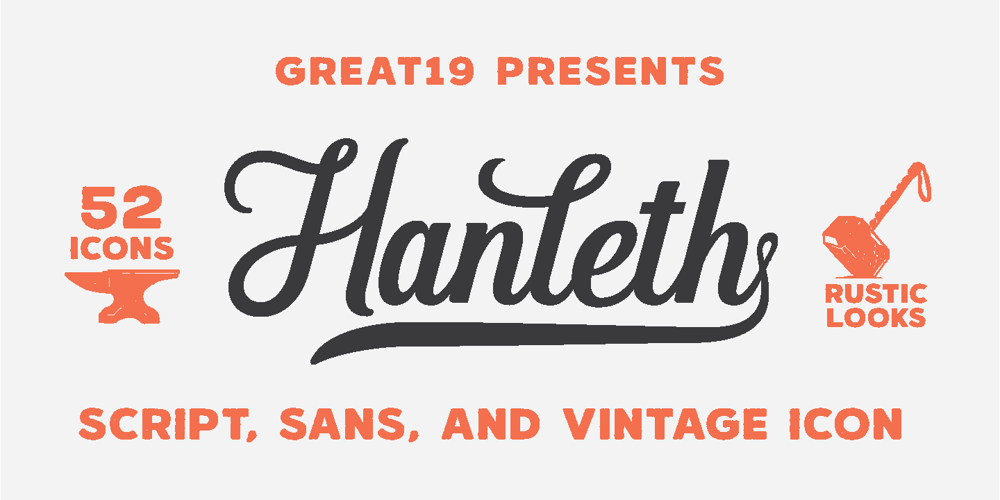
Hanleth Font Family was designed by Andhi Yulianto and published by great19. Hanleth contains 5 styles and family package options. Hanleth family is a combination of script and all cap sans. This duo font was made and inspired by old vintage script and simple sans, polished with a little bit of modern style. This font family is a vintage, authentic and hand crafted piece of typeface. 1. Hanleth script : comes with clean and rough version. with some swash and alternates that make it looks unique and elegant. 2. Hanleth sans : comes with clean and vintage rustic version. a simple sans that generally good for tittle and body text. 3. Hanleth icon : comes with 52 vintage rustic icons is perfect to boost the vintage feel of this family. Hanleth family is perfect to make logotype, product packaging, tittle for poster or greeting card, promotional message, branding project and more.